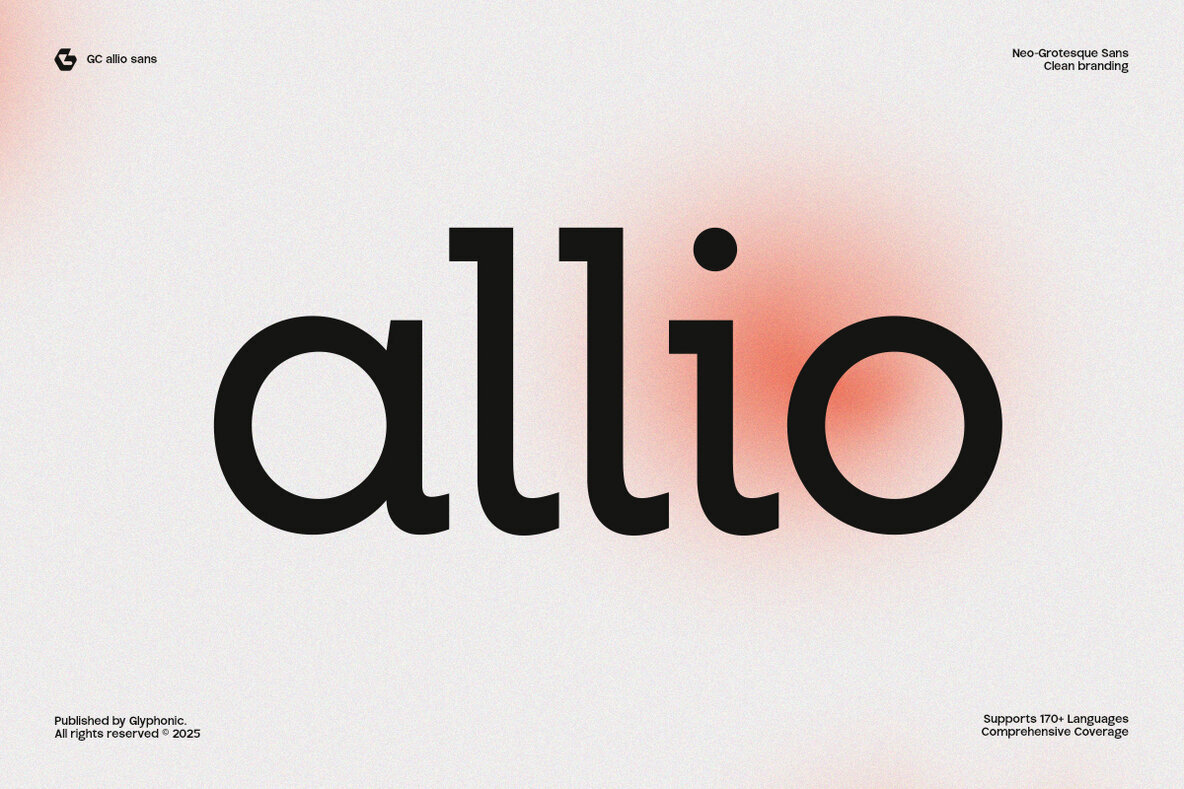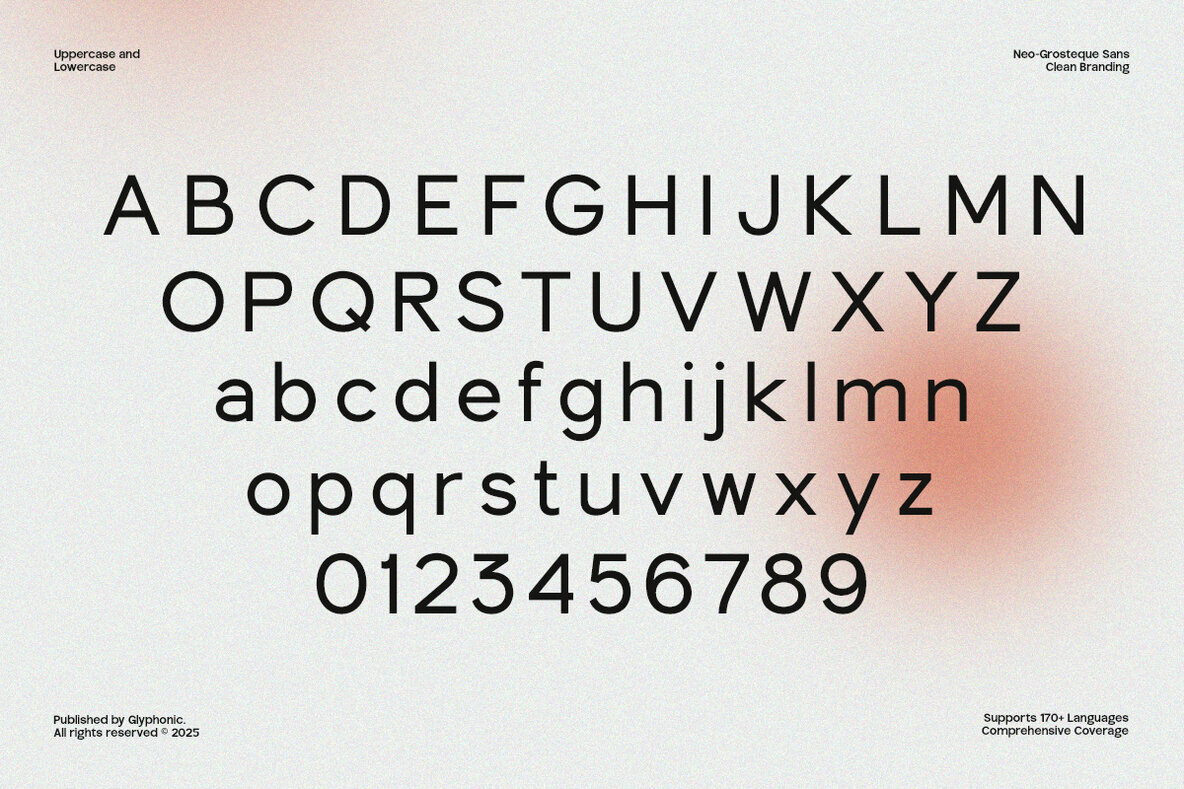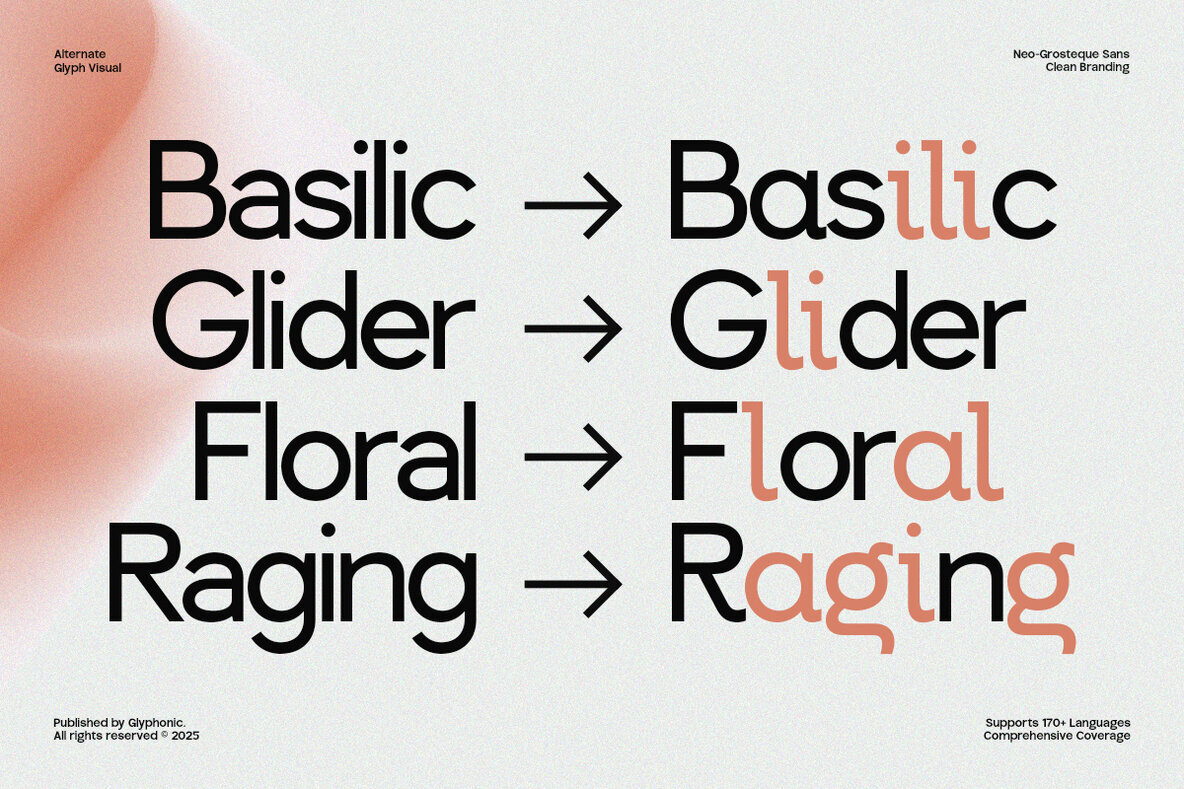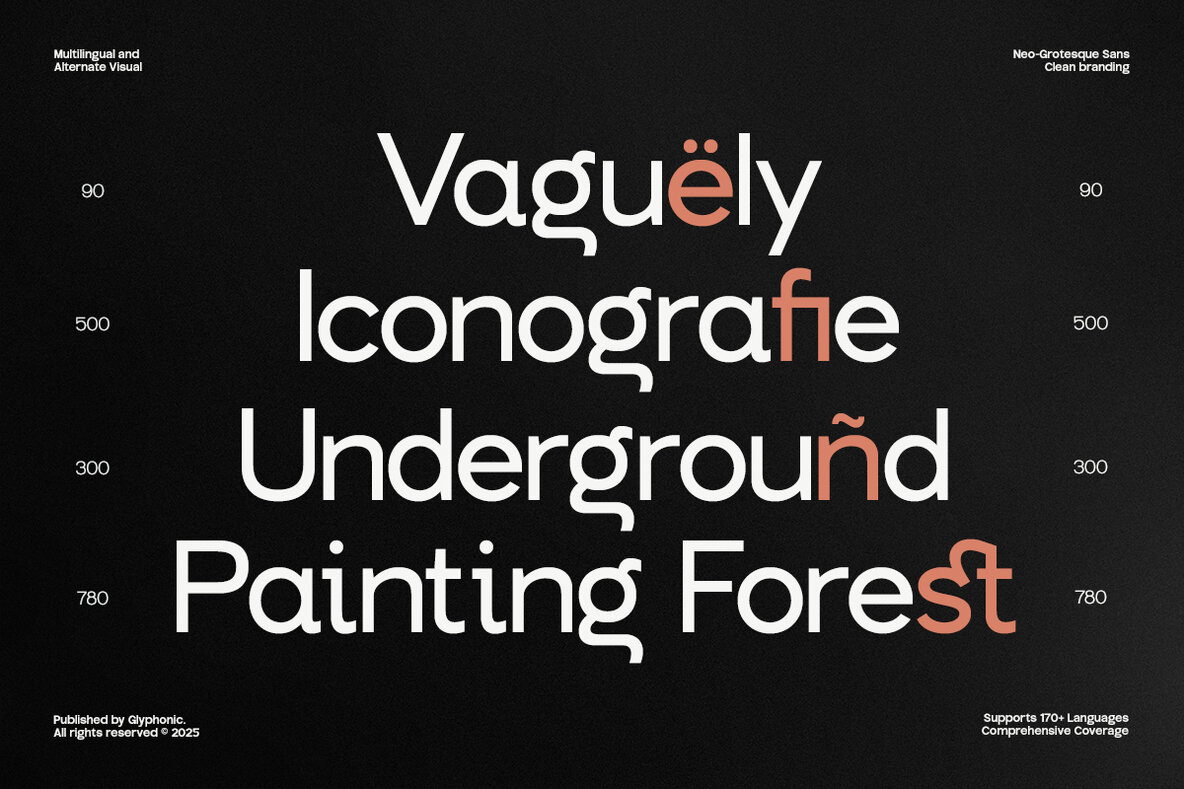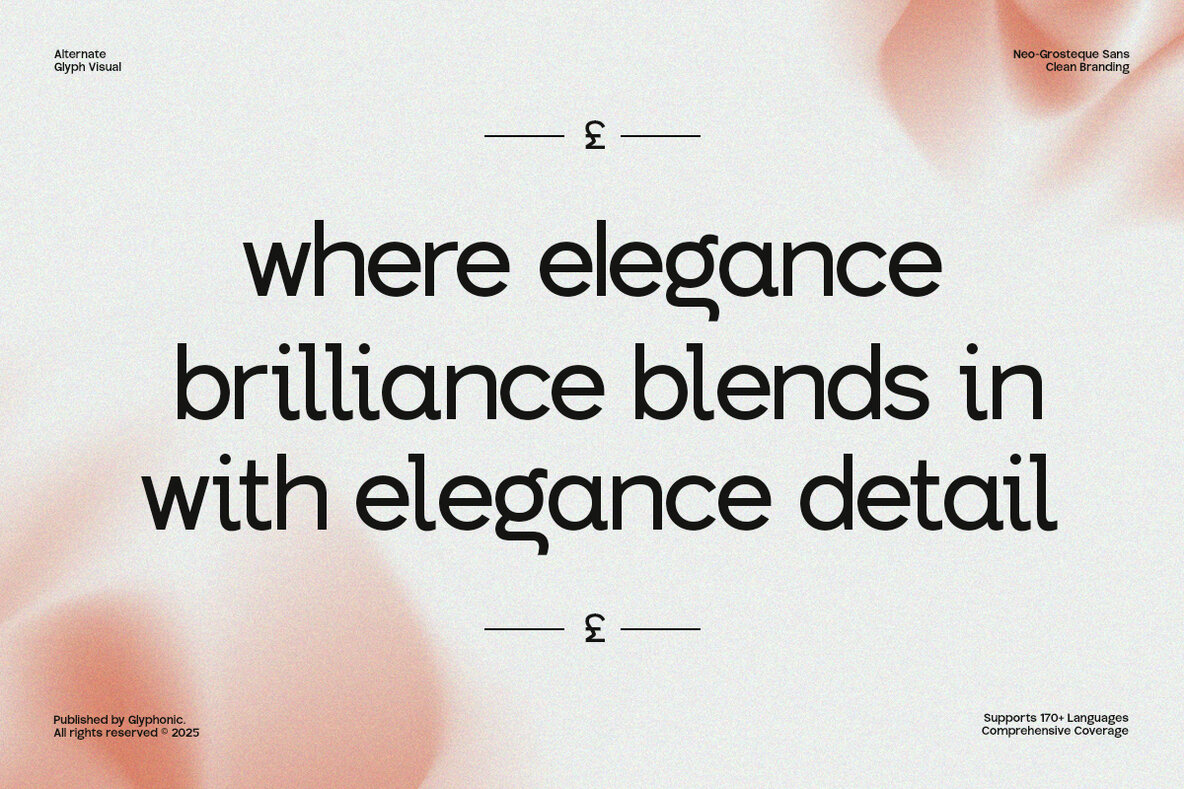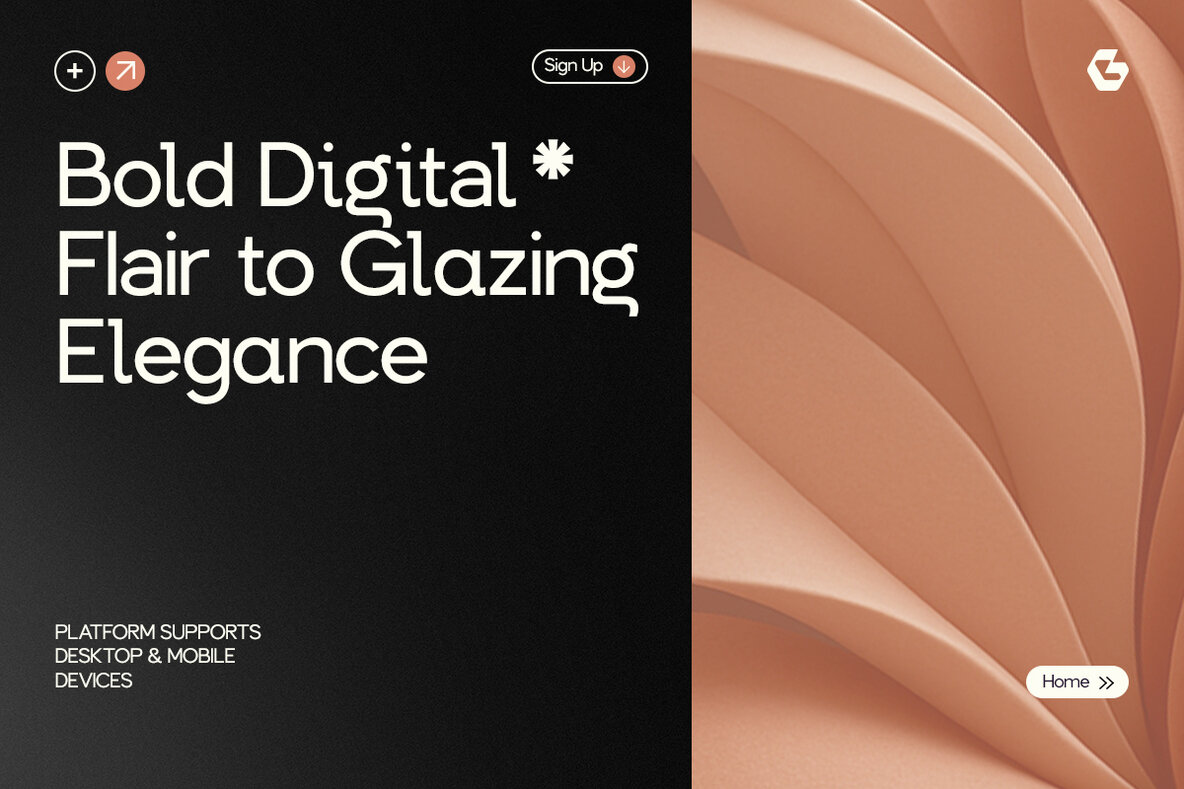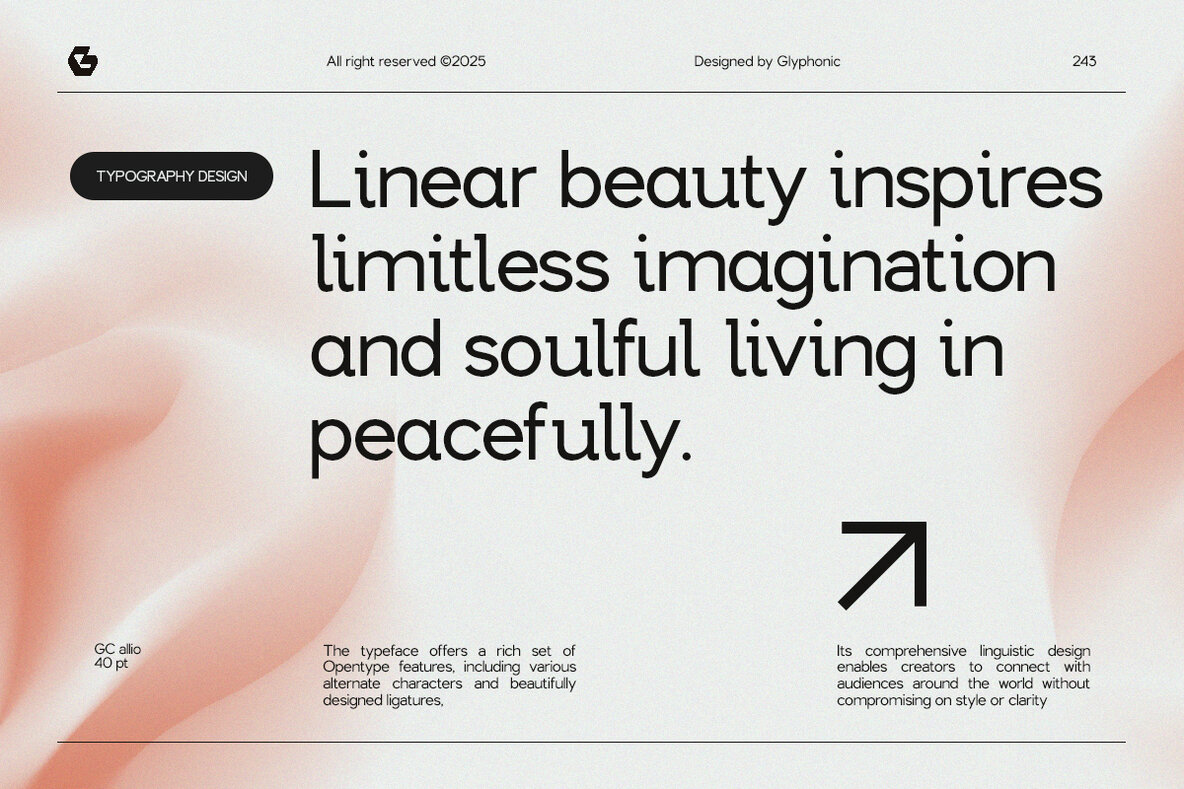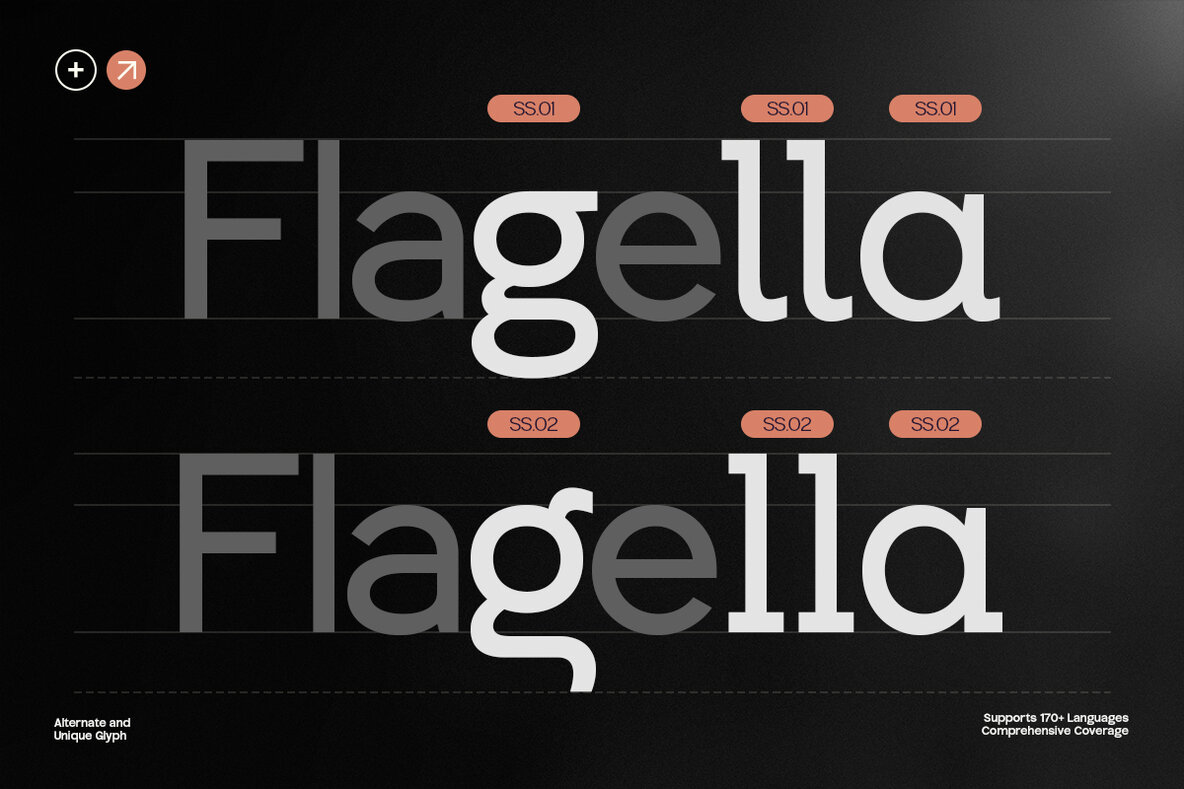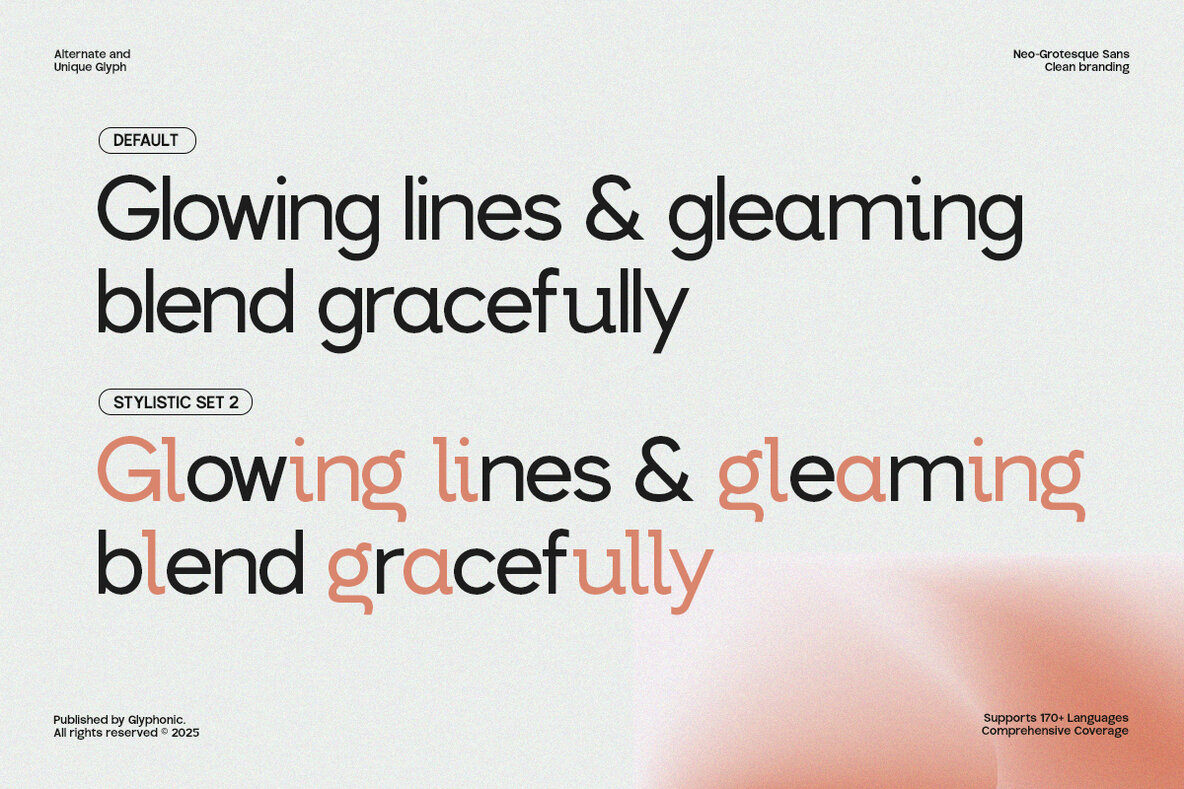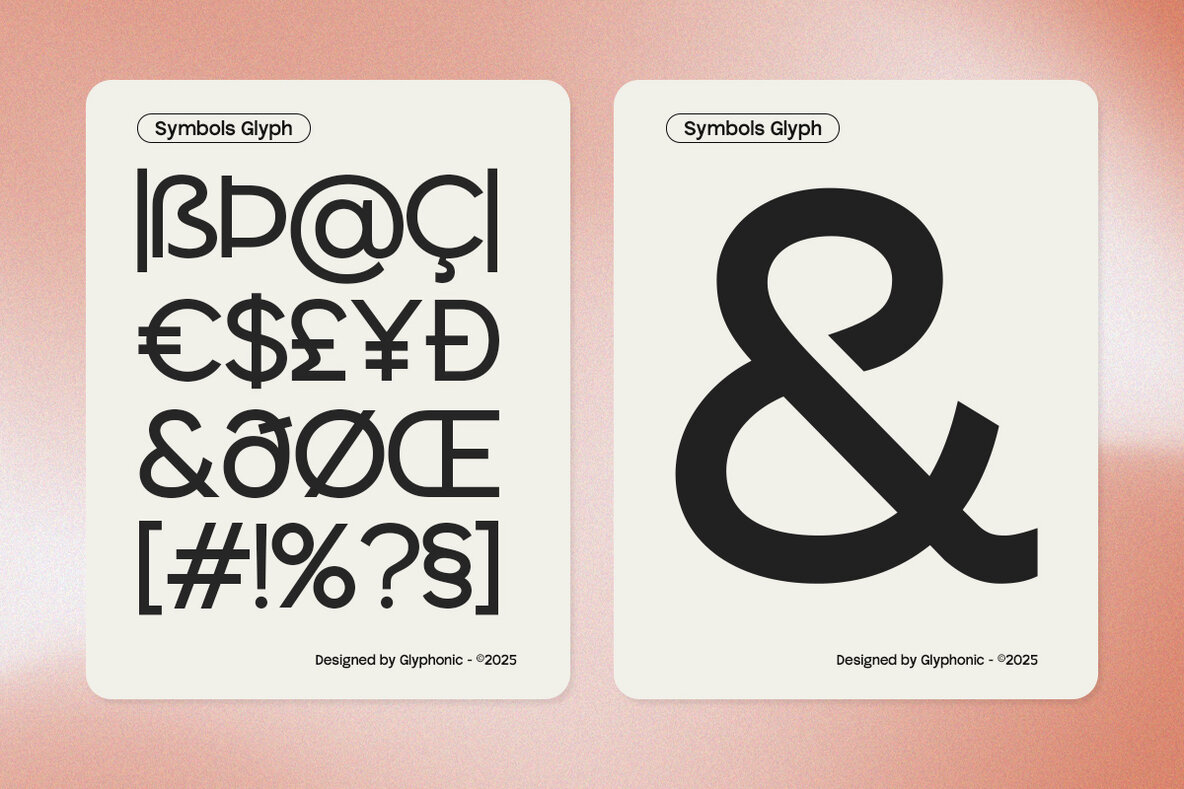
GC Allio Font
GC allio Regular
GC Allio is a sans-serif typeface that harmonizes minimal form with articulate clarity, making it ideal for modern branding and communication. Its design perfectly caters to headlines, corporate identities, logos, packaging, and editorial layouts, all while exuding a sleek and memorable impression suited for designers who appreciate simplicity and elegance. With its well-balanced proportions, consistent stroke widths, and geometric yet approachable curves, GC Allio ensures a polished appearance without sacrificing friendliness. This typeface is versatile, offering a timeless style suitable for lifestyle branding, digital interfaces, and minimalist print design. Features:GC Allio: A Neo-Grotesque Sans Serif